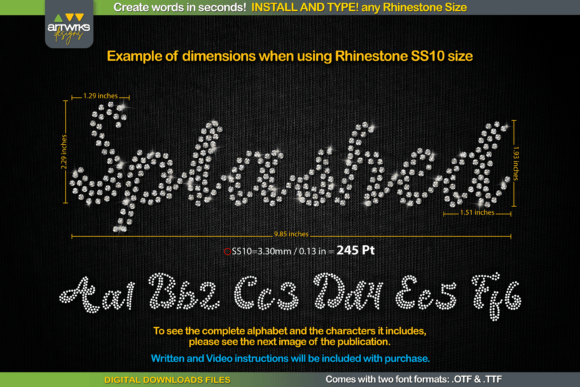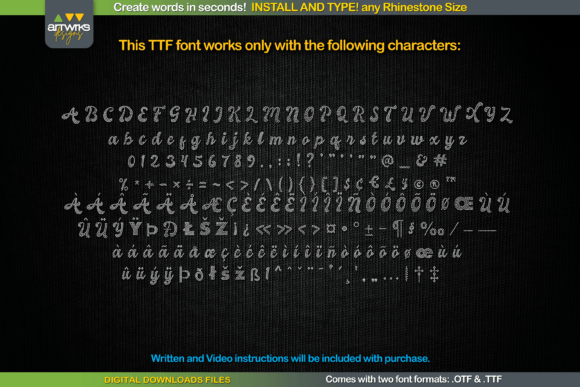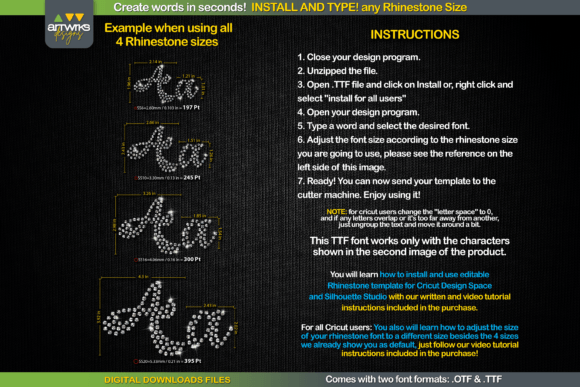
Splashed Font
This is a very cool Rhinestone template Splashed Script font that will let you create words in seconds! In addition, when you type, each letter is filled perfectly with rhinestones or arranged and trapped for heat transfer vinyl so you can conveniently customize your designs with text.